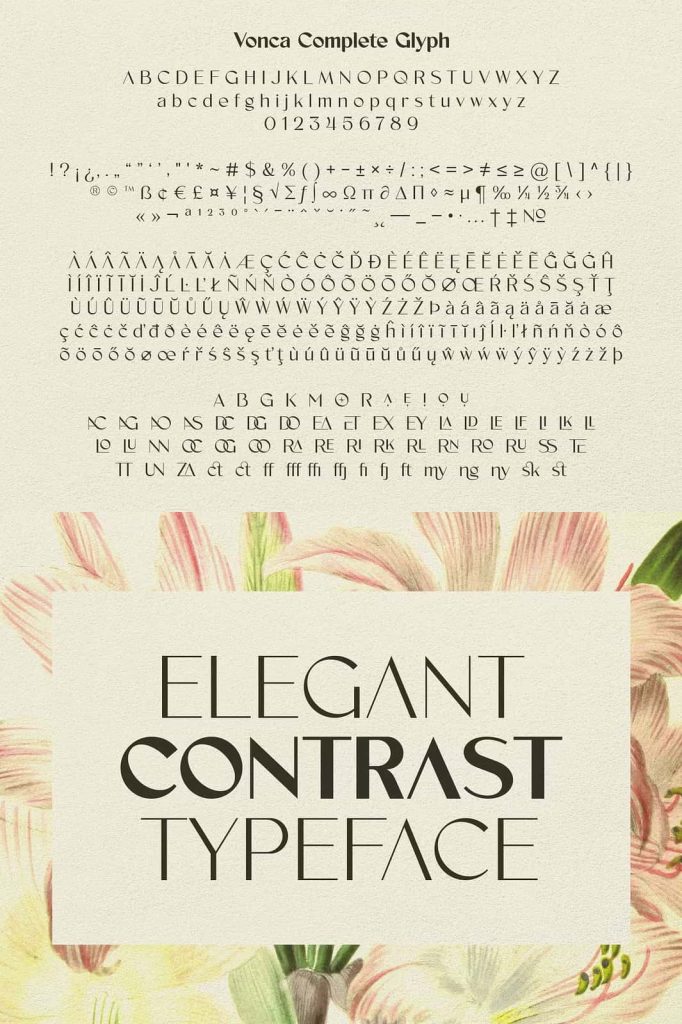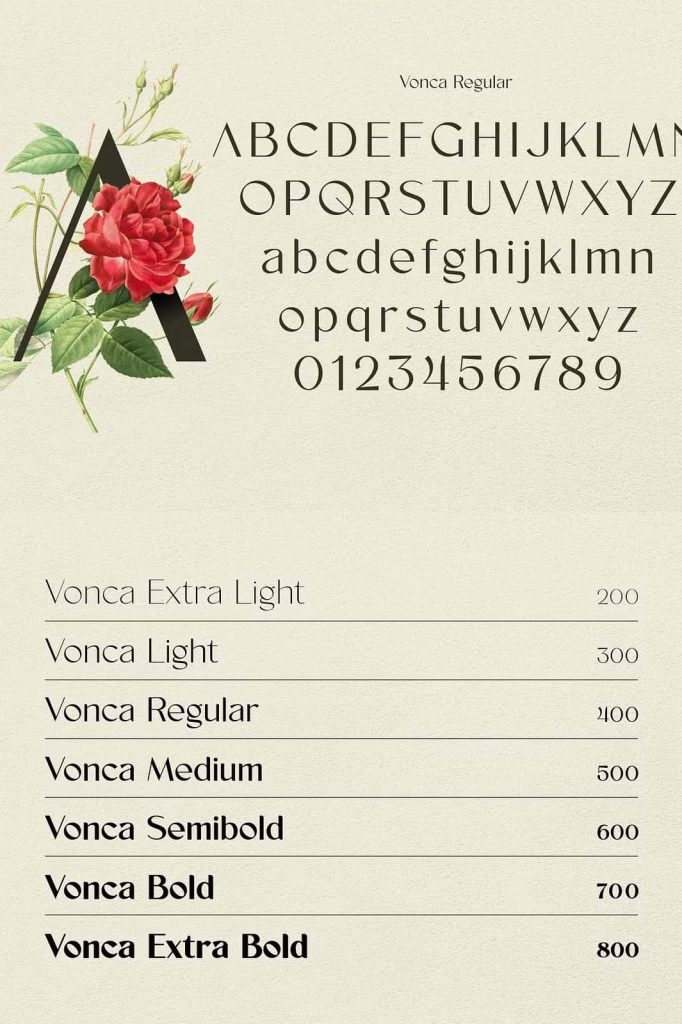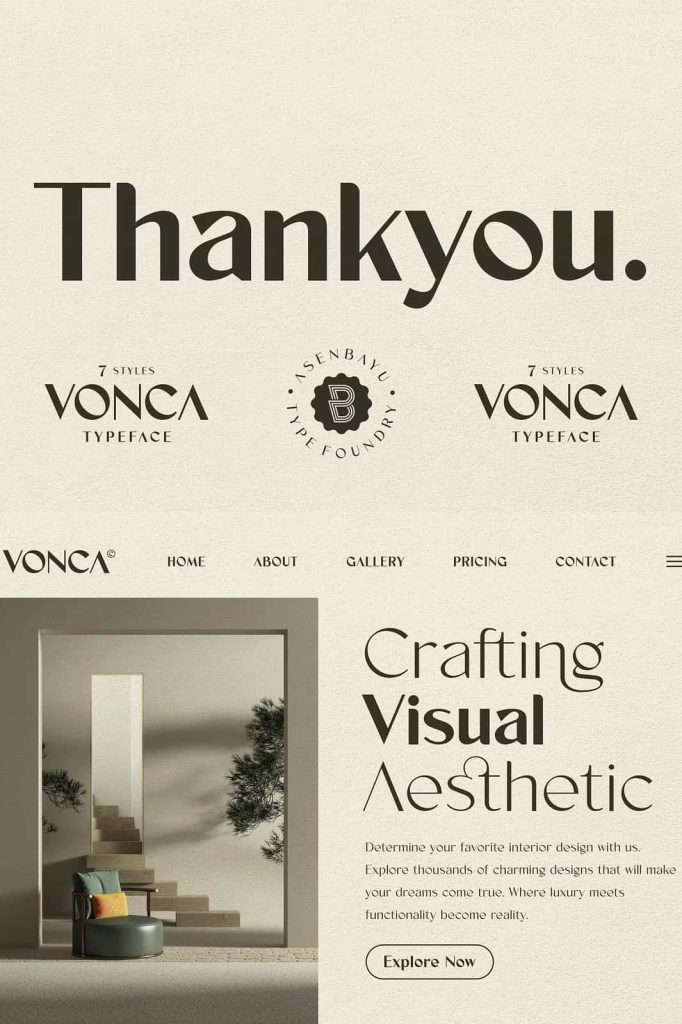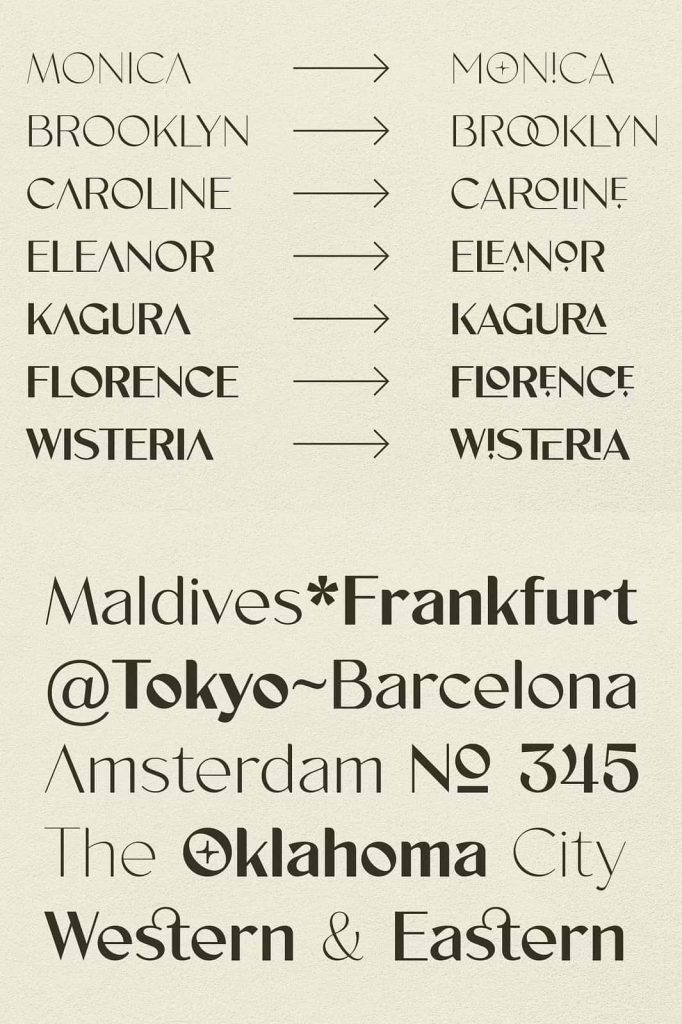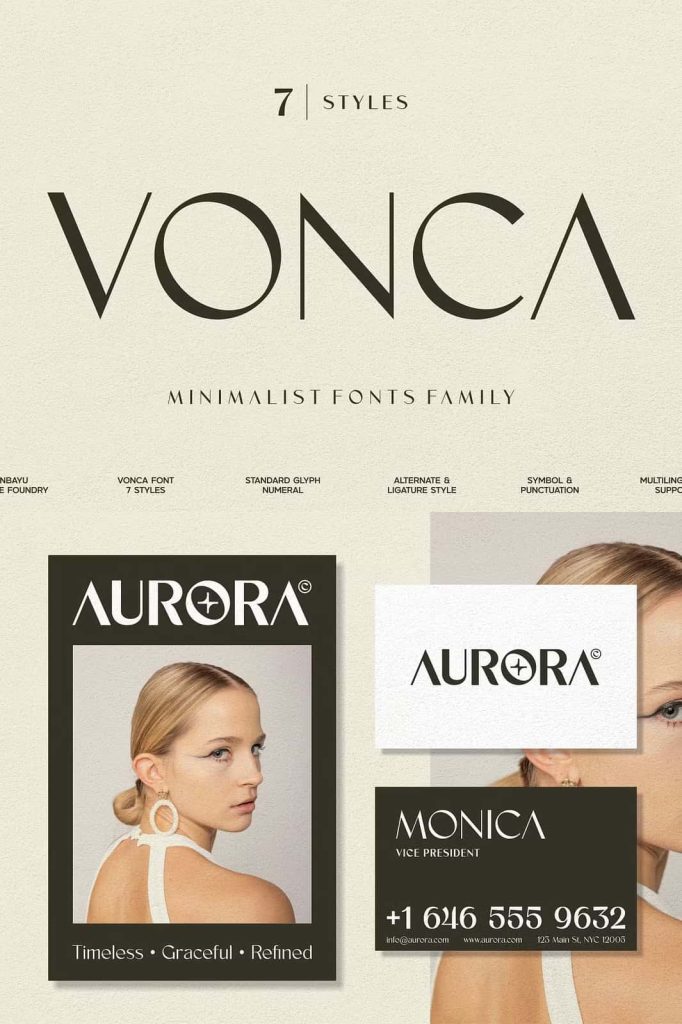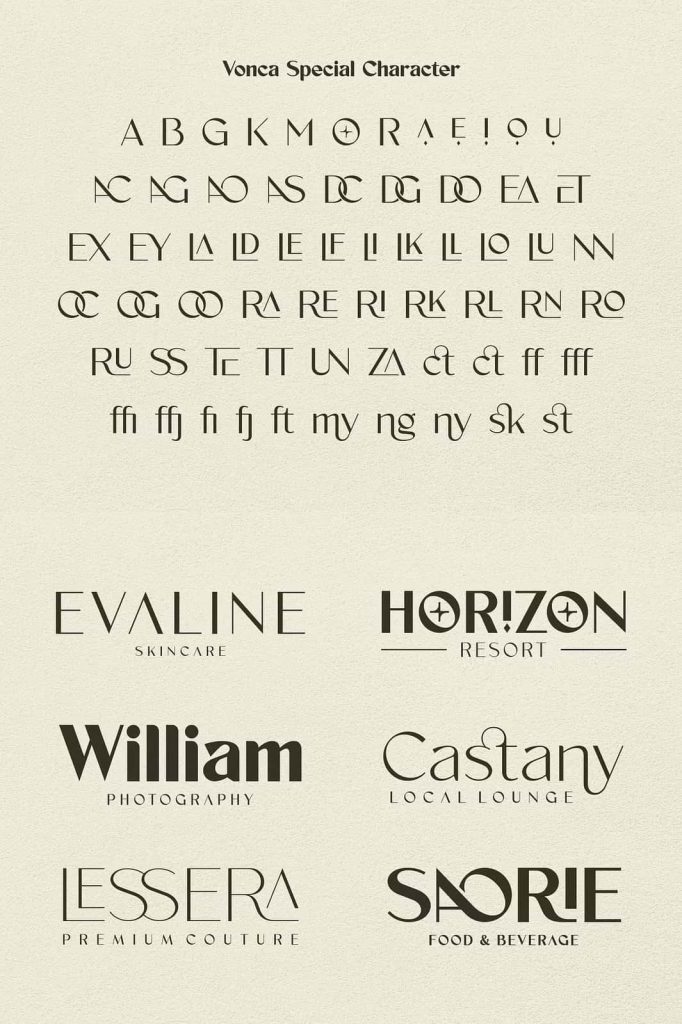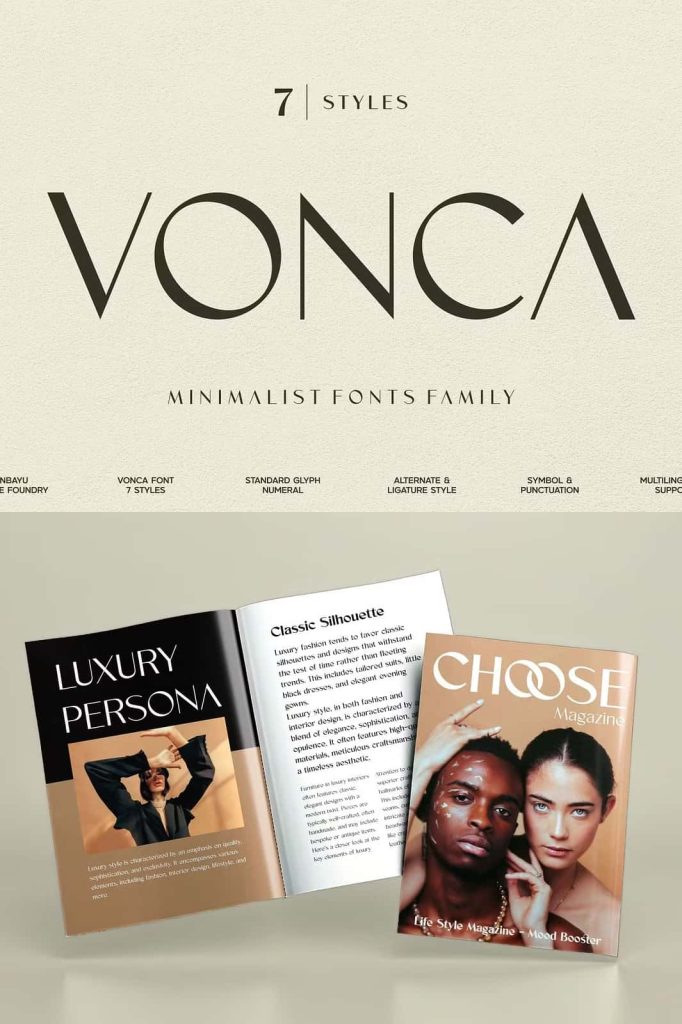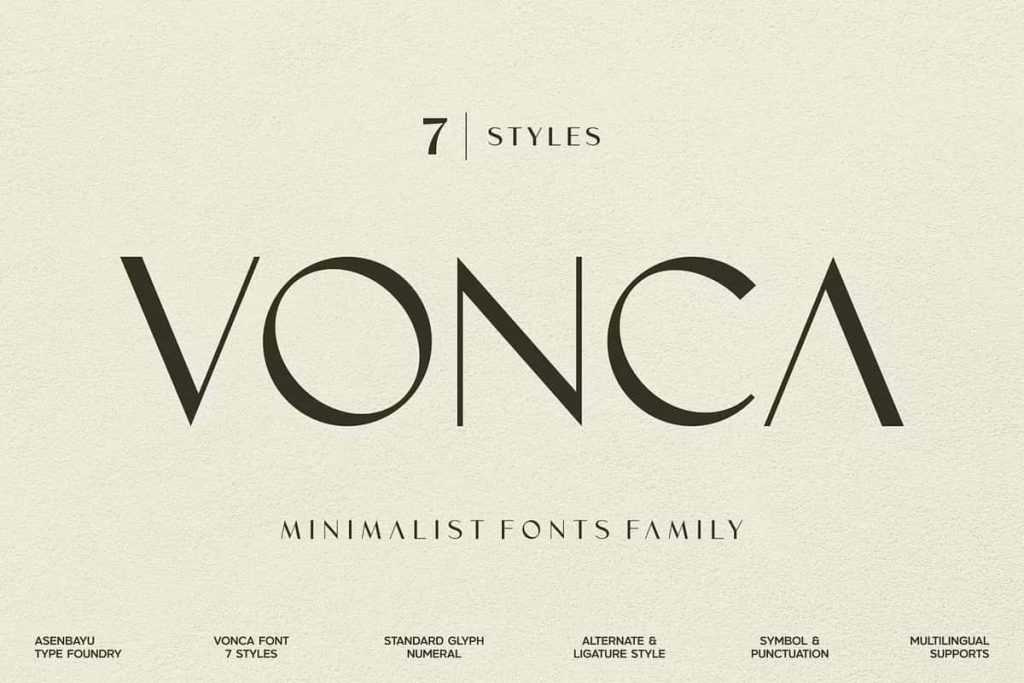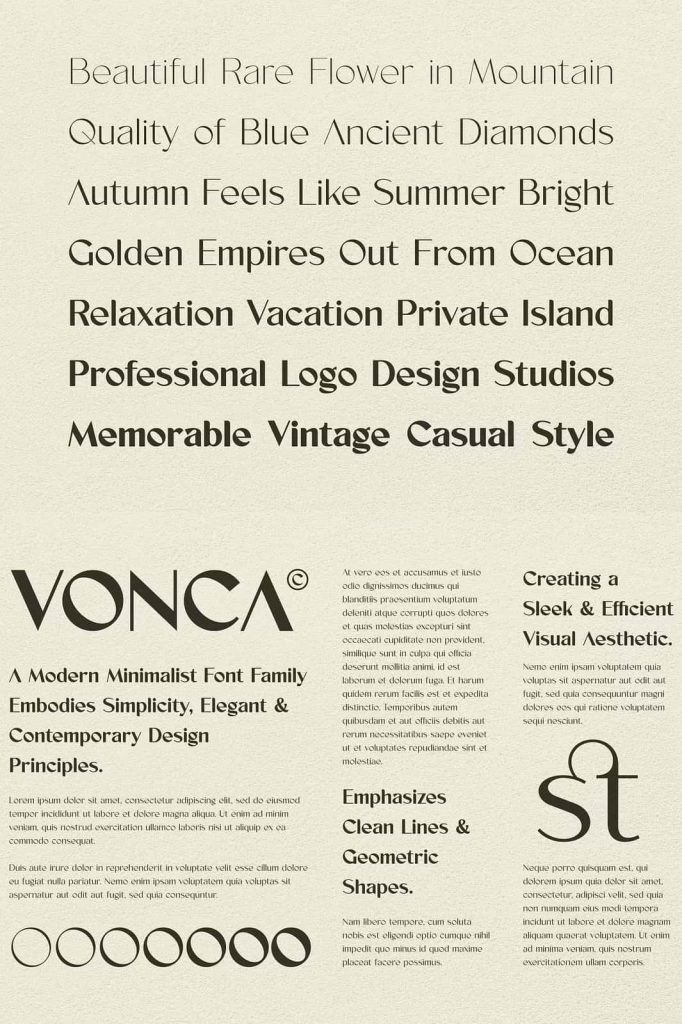
Vonca Minimalist Font Family: Clean Geometry for Modern and Timeless Design
Vonca is a modern minimalist font family that brings together simplicity, elegance, and contemporary design principles. It focuses on clean lines and geometric precision to create a sleek and highly functional visual style. Designers who value clarity and efficiency will find Vonca to be a powerful tool for building refined and impactful typography.
This font family does more than present text in a clean format. It shapes visual identity through structure and balance. Vonca delivers a modern aesthetic that feels both fresh and timeless, making it suitable for a wide range of creative projects. Its adaptability allows designers to explore both modern and vintage-inspired designs without losing consistency.
Minimalist Design Rooted in Geometry
Vonca is built on geometric foundations that emphasize precision and uniformity. Each letterform follows a structured design approach, ensuring consistency across the entire typeface. This geometric construction creates a strong visual framework that enhances readability and clarity.
The minimalist philosophy behind Vonca removes unnecessary elements and focuses on essential shapes. This approach results in a typeface that feels clean, efficient, and visually balanced. Designers can rely on this structure to create compositions that communicate effectively.
Clean Lines and Balanced Proportions
The font features sharp, clean lines that define each character with clarity. These lines work together with balanced proportions to create a harmonious visual rhythm. This consistency improves the overall readability of the text and enhances the user experience.
Designers can use these qualities to build layouts that feel organized and professional. The simplicity of the design allows other visual elements to stand out while maintaining a cohesive look.
Modern Aesthetic with Timeless Flexibility
Vonca achieves a unique balance between modern design and timeless appeal. Its clean and geometric style aligns with contemporary trends, while its simplicity ensures long-term relevance. This flexibility allows the font to adapt to different design contexts without appearing outdated.
Designers can use Vonca in projects that require a modern edge or reinterpret it within vintage-inspired compositions. Its neutral yet distinctive character supports a wide range of creative directions.
Bridging Modern and Vintage Styles
The versatility of Vonca allows it to function in both modern and retro-inspired designs. Its clean structure provides a contemporary foundation, while its simplicity makes it easy to pair with vintage elements.
This adaptability makes Vonca an excellent choice for designers who want to explore different styles while maintaining a consistent typographic voice.
Perfect for Branding and Logo Design
Vonca excels in branding projects where clarity and uniqueness are essential. Its minimalist design helps create strong and memorable visual identities. The geometric structure ensures that logos remain clean and recognizable across different mediums.
Designers can use Vonca to craft branding systems that feel modern and professional. Its simplicity allows it to integrate seamlessly with other design elements while maintaining a distinct presence.
Creating Unique and Memorable Logos
The font’s clean shapes make it ideal for logo design. Designers can use it to create wordmarks that are both simple and impactful. Its geometric precision ensures that logos maintain their integrity at various sizes.
This makes Vonca a reliable choice for building brand identities that stand out in competitive markets.
Ideal for Packaging, Posters, and Fashion Design
Vonca adapts effortlessly to a variety of design applications. In packaging design, it creates a modern and polished look that enhances product presentation. Its clean lines help communicate quality and attention to detail.
In poster design, Vonca delivers strong visual impact. Its geometric forms create bold compositions that capture attention. In fashion design, the font complements contemporary aesthetics, making it suitable for labels, lookbooks, and promotional materials.
Enhancing Visual Appeal Across Creative Projects
The versatility of Vonca allows designers to use it across different creative fields. It maintains its clarity and structure in both large display text and smaller details. This consistency ensures that designs remain cohesive and visually appealing.
Designers can rely on Vonca to deliver a clean and modern look in every application.
A Typeface That Emphasizes Simplicity and Efficiency
Vonca stands out by focusing on essential design principles. It removes unnecessary complexity and highlights the importance of clarity and balance. This approach makes it a practical and effective tool for modern design.
Designers can use Vonca to create work that feels intentional and refined. Its minimalist nature supports both creativity and functionality, allowing for a wide range of design possibilities.